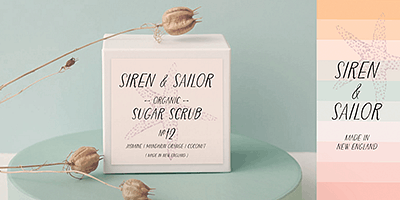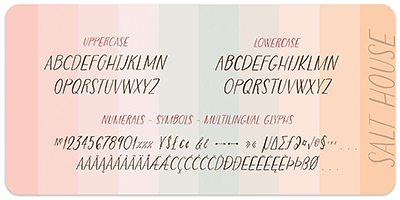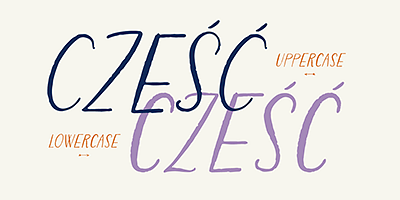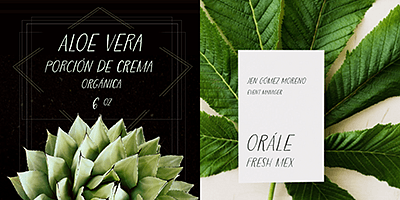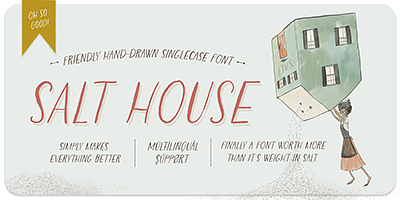
Salt House is a hand-drawn ALL CAPS font. It’s simple nature stands well alone or as a foil to more expressive scripts. Salt House was designed to compliment modern calligraphy fonts and is solid match for illustrations.
Features: Case selection switches the character sets. Additional bonus glyphs accessible through the glyphs panel.